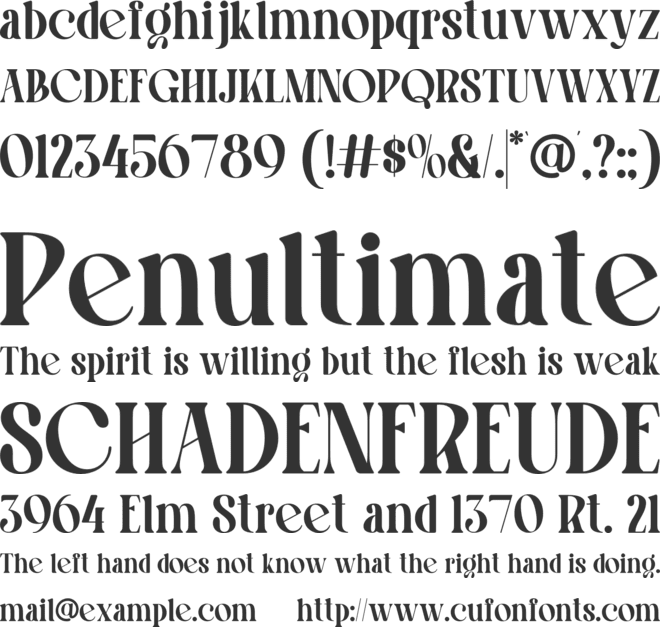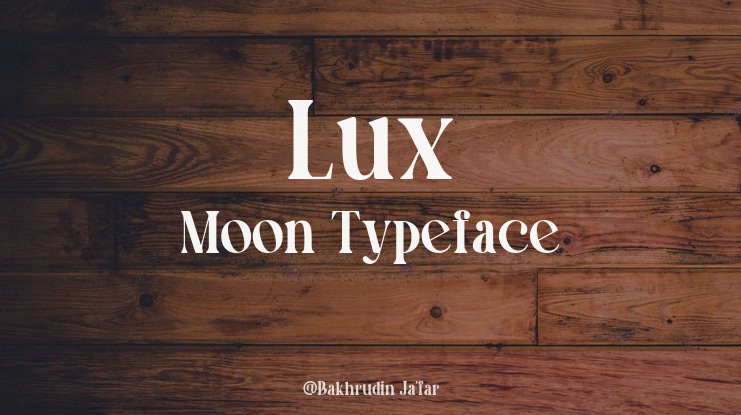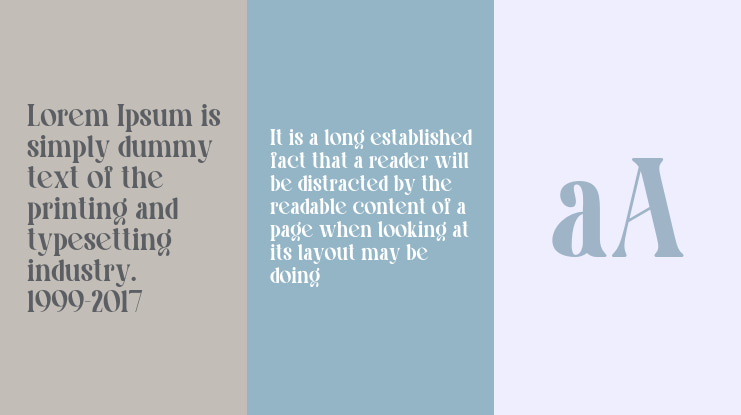
Lux Moon Font Family
Luxmoon is a modern condensed serif font that blends timeless elegance with bold contemporary edge. Designed with refined proportions, balanced kerning, smooth curves, and sharp details, it creates a powerful yet graceful visual impression perfect for branding, editorial design, logos, social media, packaging, posters, invitations, and wedding projects. Versatile in both digital and print, Luxmoon delivers sophistication, impact, and a touch of luxury to every design.